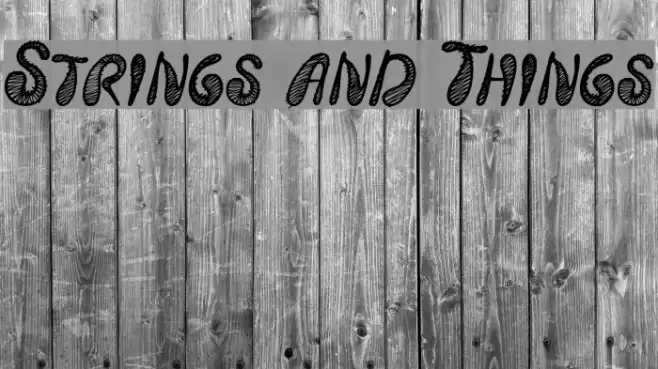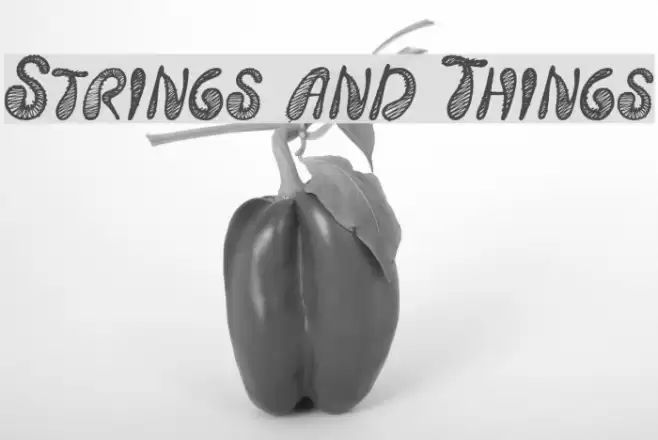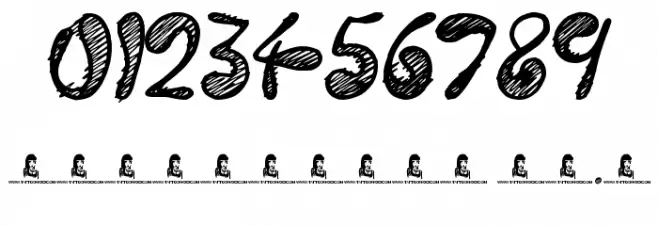
Strings and Things Font
Strings and Things Description
This font features a playful and artistic style, characterized by its bold, hand-drawn appearance. Each letter is filled with a textured, scribble-like pattern that gives it a dynamic and energetic feel. The strokes are thick and uneven, adding to the casual and informal nature of the design. The font maintains a consistent height across all characters, with rounded edges that soften its overall look. It is highly decorative and stands out due to its unique, sketchy aesthetic, making it ideal for creative projects that require a touch of whimsy and individuality.
A bold, hand-drawn font with a textured, scribble-like pattern from Cartoon fonts.
- Proposed Projects: Ideal for posters, children's book covers, playful branding, and artistic projects.
- Overall Style: Playful, Artistic